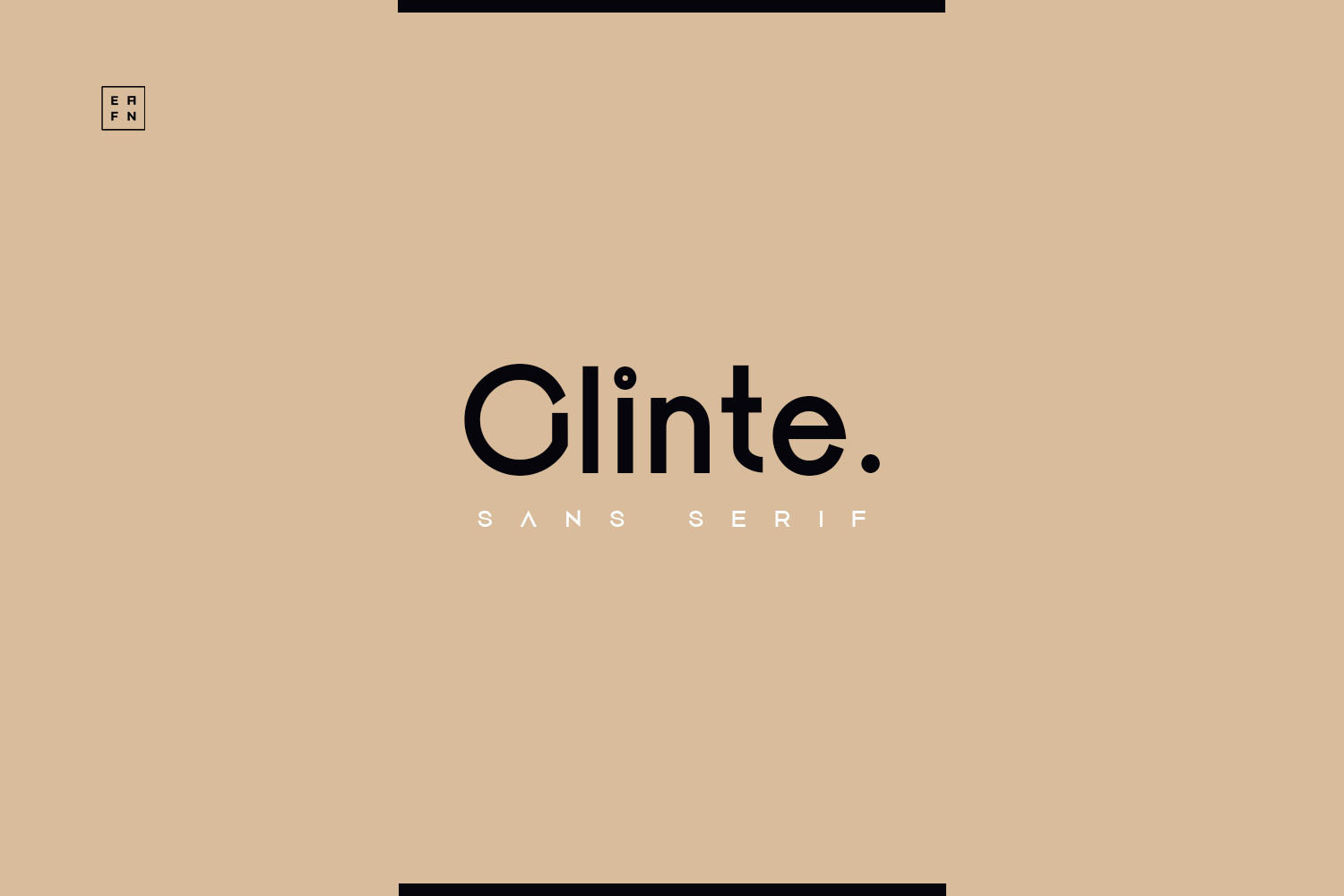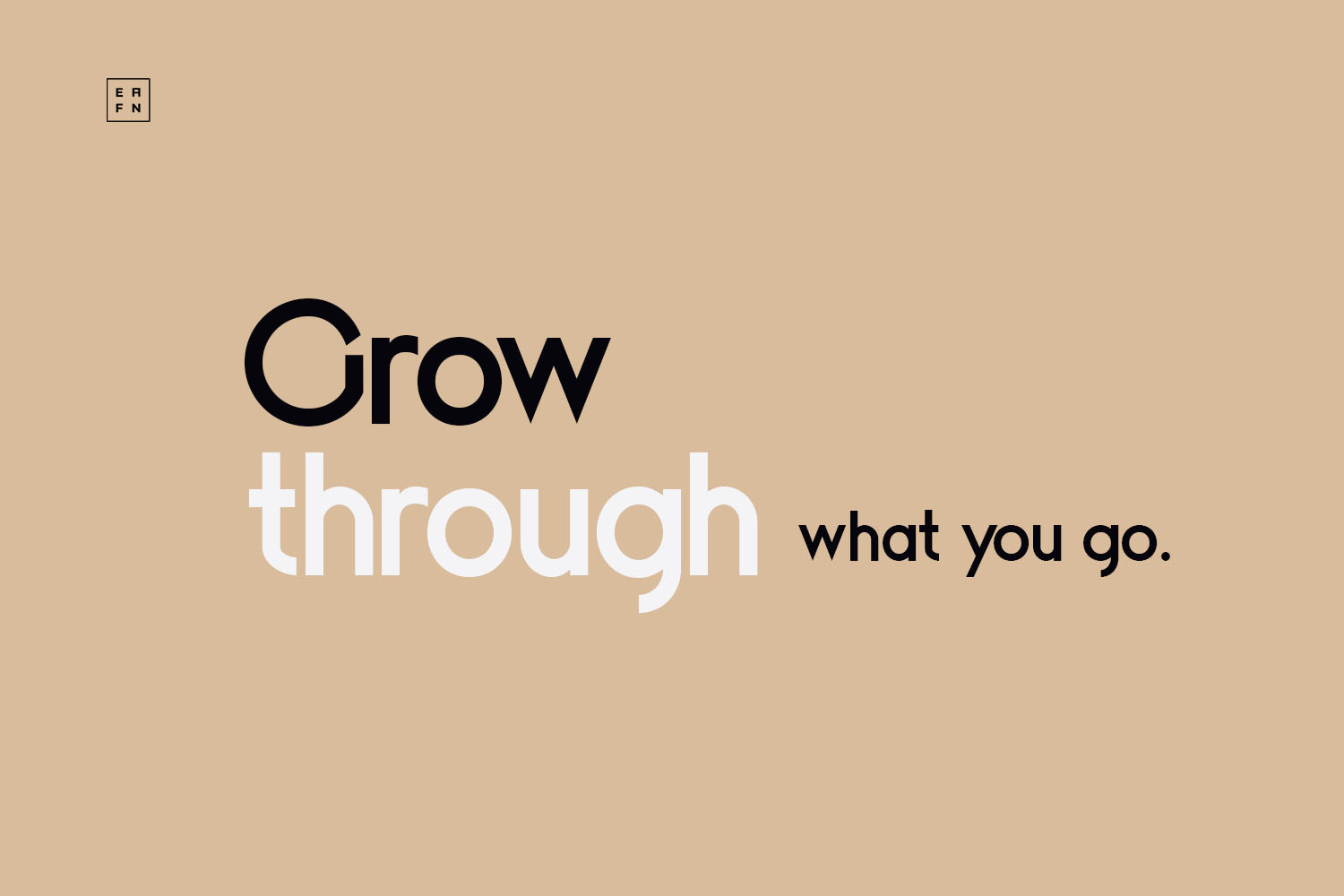
Glinte Font
Glinte is a minimalist display typeface that fits well for logotypes, branding, headlines, corporate identities, web and print marketing materials, and other minimalist designs.
Please see the sample graphics included to get a sense of what this typeface can do in terms of branding and marketing content design.
These uppercase fonts can be used in your projects to keep your presentations looking clean and simple.
To get a taste of the typeface's capabilities, look at the examples above.
It's a clean and feminine sans serif typeface that's been around for a long time. Quotes, blog headers, posters, weddings, branding, logos, fashion, clothes, documents, invitations, stationery, and more will all benefit from it. This font can be used in a variety of design projects.
It's perfect for beautiful branding, logos, invitations, and wedding details, among other items. This is appropriate for both personal and professional endeavours. If you have any questions or experience any difficulties, please contact me.
Daily modern sans serif font with a fashionable appearance!
This font has 200 above glyphs and extensive Latin script support and upper and lowercase sans serif characters. It carries a powerful, unique, and social character line with a premium finish, giving a new impression. Add it confidently to your favorite creations and let yourself be amazed by the outcome generated.